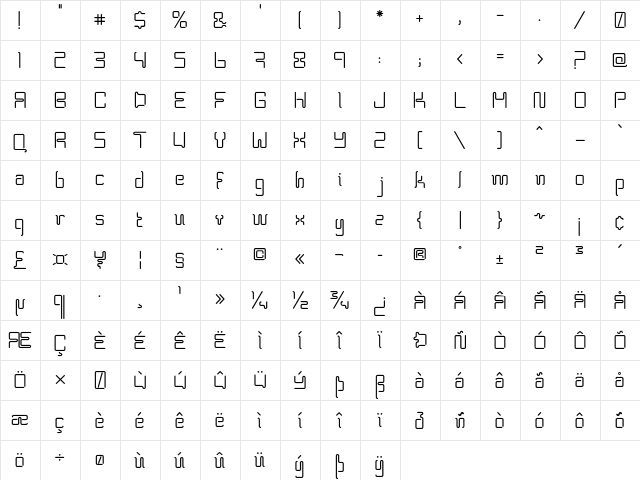
BPneon Regular
Design Context for BPneon Typeface
BPneon channels digital-age aesthetics through its sharp, structured letterforms — ideal for brands that want to signal innovation.
Pro Tip: Use BPneon in combination with a neutral sans for body text. Let it define the brand voice in headlines while keeping reading comfortable elsewhere.